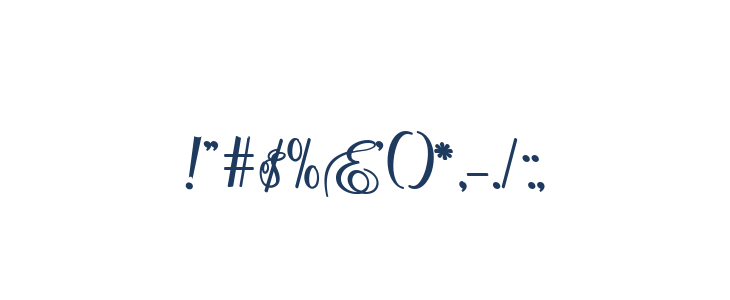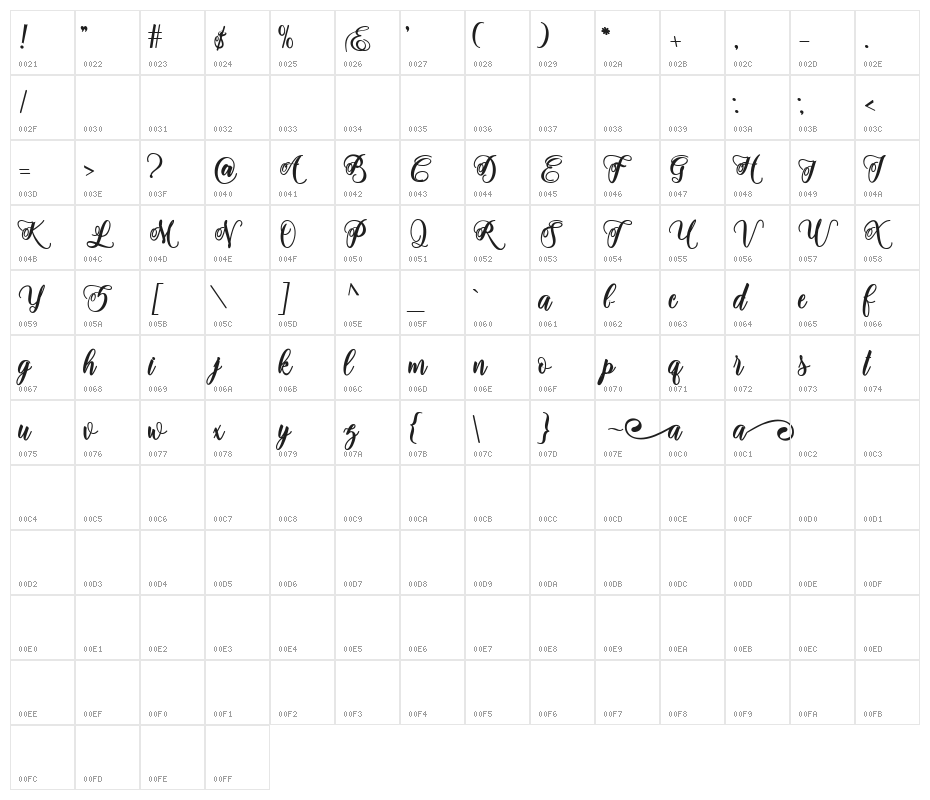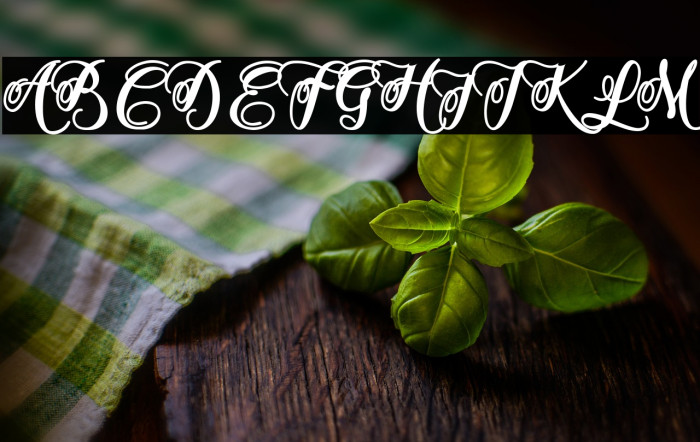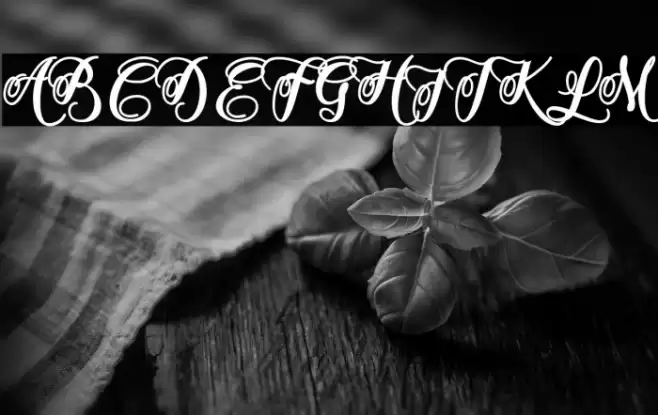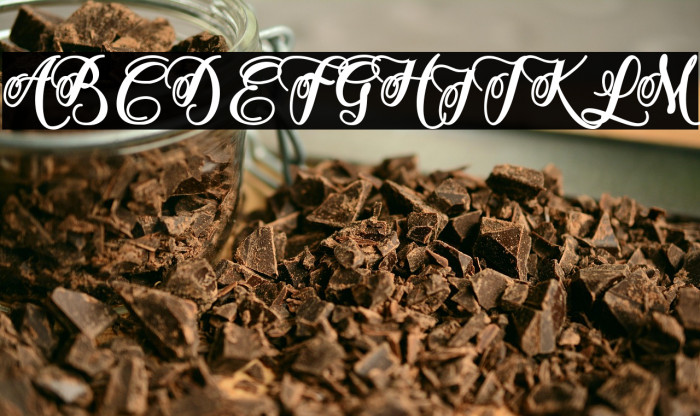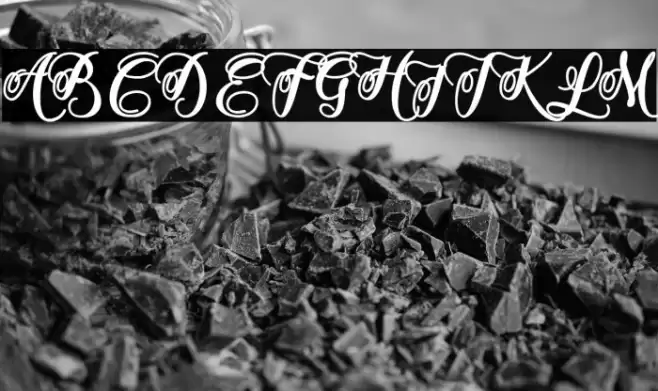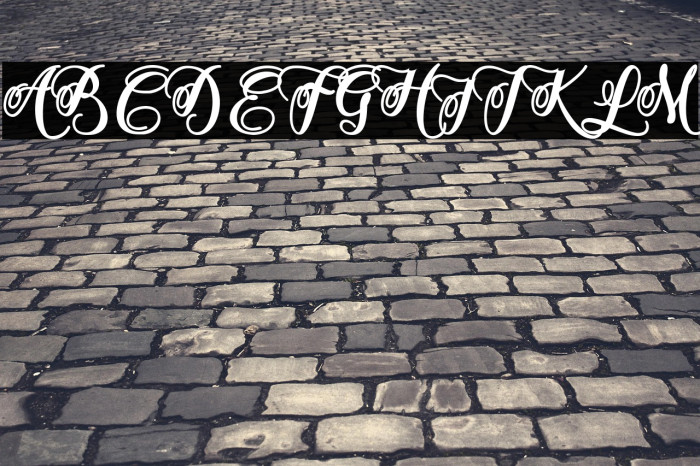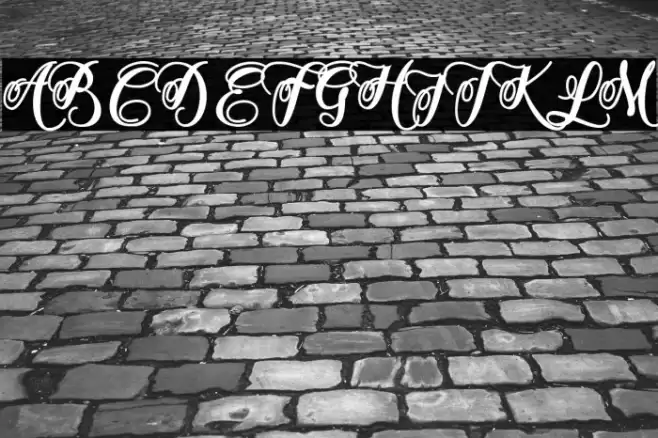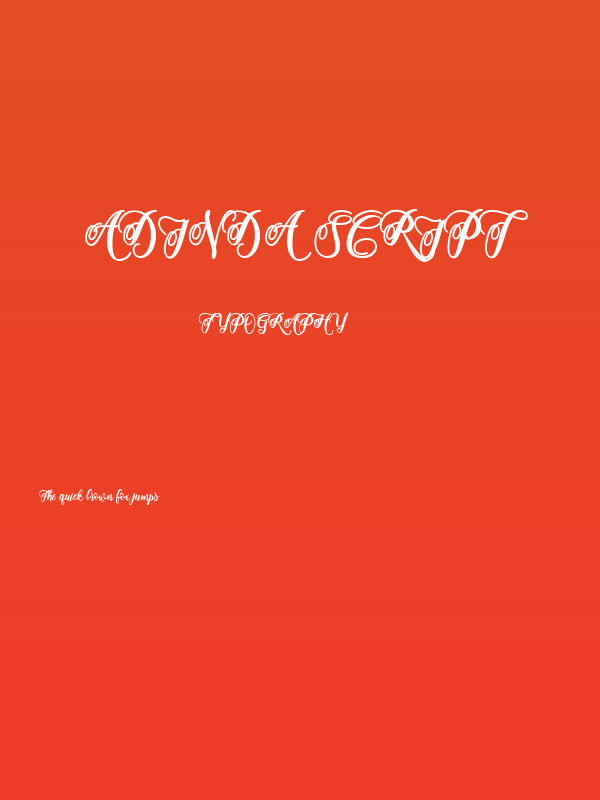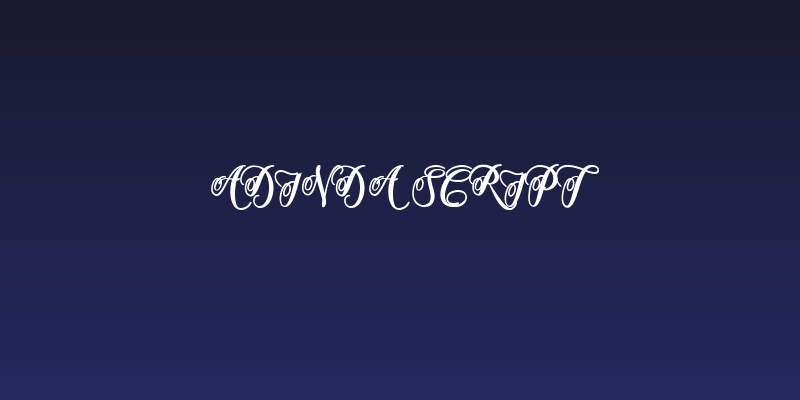
adinda script Font
adinda script Description
This font exudes a playful and elegant script style, characterized by its flowing, interconnected letters. The uppercase letters feature elaborate loops and swirls, adding a touch of sophistication and whimsy. The lowercase letters maintain a consistent flow, with smooth curves and a slightly slanted orientation, enhancing its handwritten appearance. The numerals and special characters complement the overall style with similar decorative elements. This font is ideal for projects that require a personal, artistic touch, such as invitations, greeting cards, or branding materials.
| Proposed Projects | Ideal for invitations, greeting cards, branding, and artistic projects. |